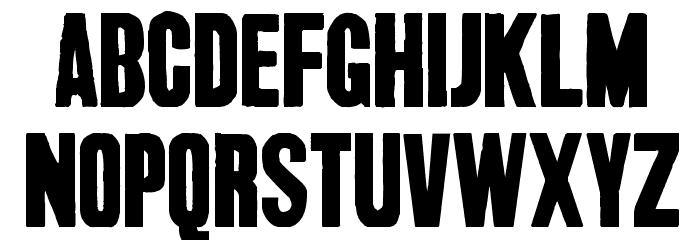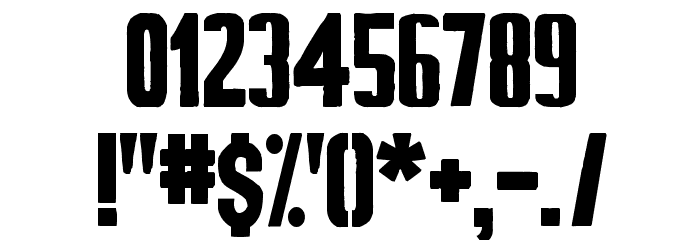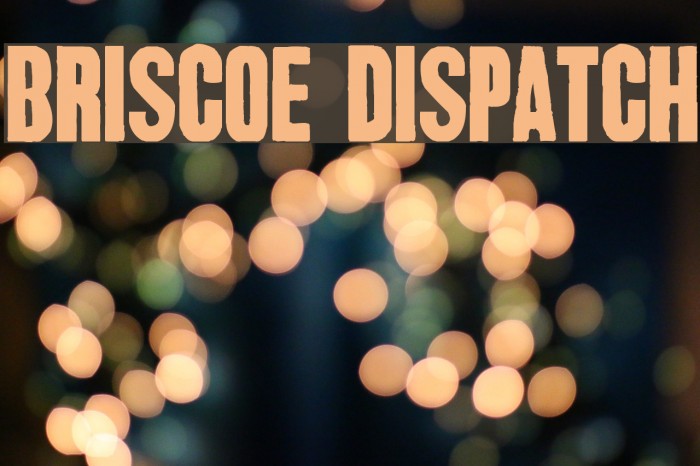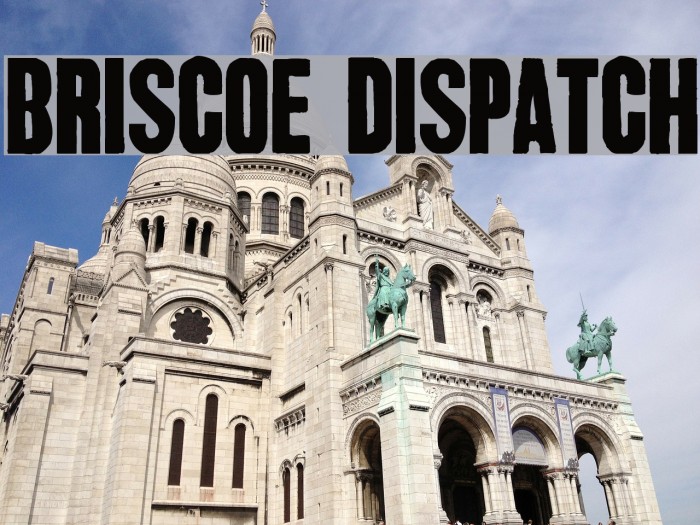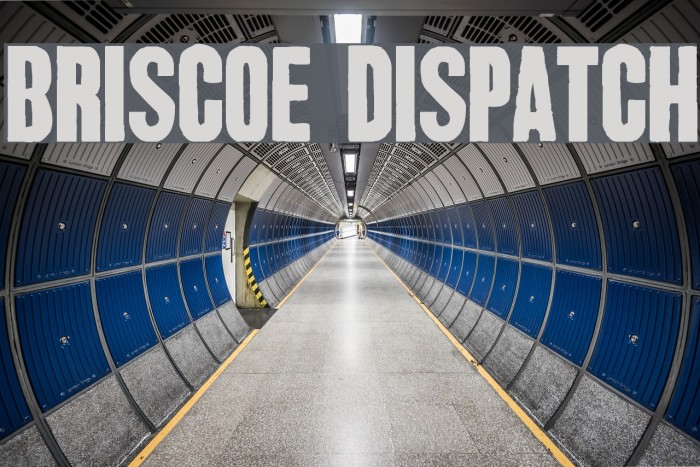
Briscoe Dispatch Font
This font features a bold and impactful style with a distressed, textured appearance. The characters are uppercase and display a rugged, worn look, reminiscent of vintage signage or old newspaper headlines. The strokes are thick and uneven, giving the font a raw and edgy feel. The numbers and special characters maintain this distressed aesthetic, ensuring consistency across all glyphs. This font is designed to stand out and make a statement, perfect for projects that require a strong visual impact.
A bold, distressed font with a vintage, rugged appearance.
- Proposed Projects: Ideal for posters, headlines, branding, and any design needing a vintage or industrial feel.
- Overall Style: Vintage